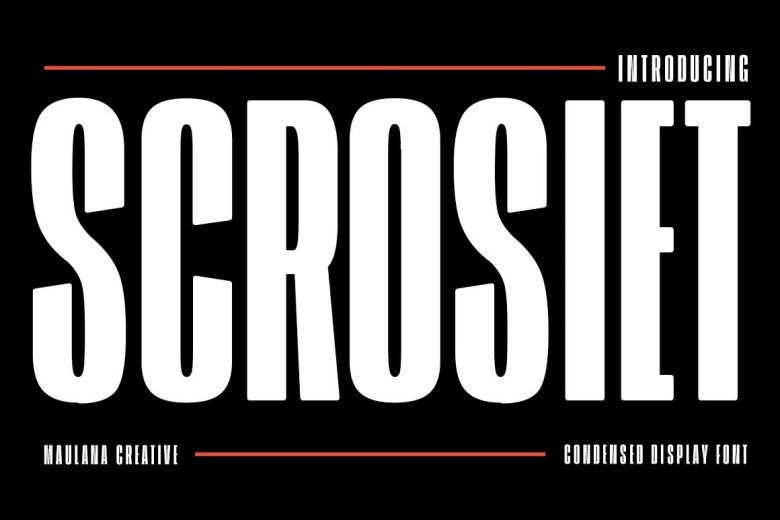
Scrosiet Font
Scrosiet is a modern condensed sans display font. It is a bold low contrast stroke, a lively character with a bit of ligatures and alternates just for you to create a piece of extra creative work. Scrosiet font Support multilingual more than 100+ language.
This font is good for logo design, Social Media, Movie Titles, Books Titles, a short text even a long text letter and good for your secondary text font with sans or serif. Make a great work with the Scrosiet font.
Scrosiet Sans Serif Display Font